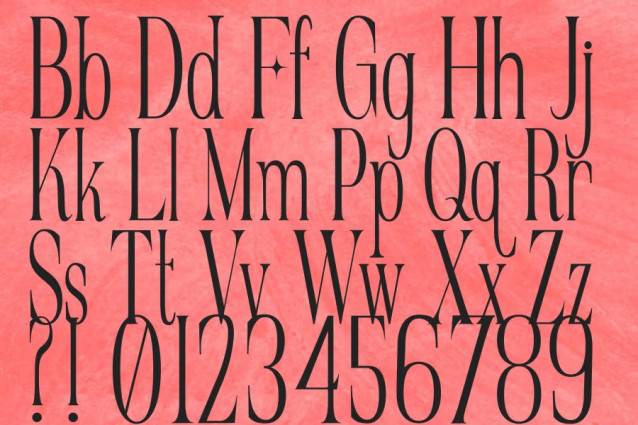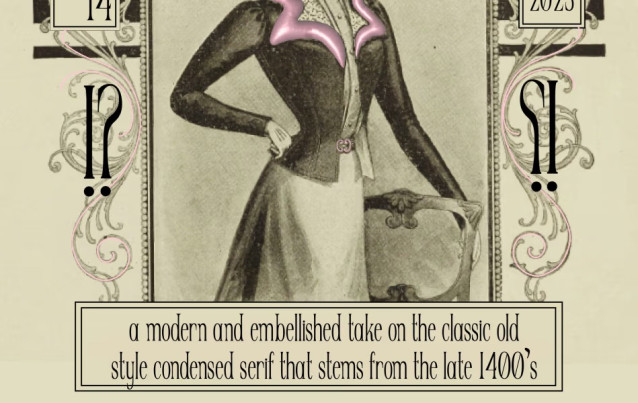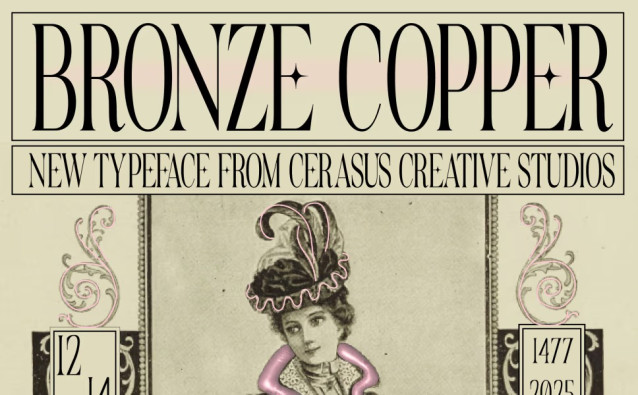
BronzeCopper Font
Bronze Copper Font is a modern and embellished interpretation of the classic old-style condensed serif font. With its refined vintage character, elegant proportions, and decorative details, this typeface brings a timeless yet sophisticated feel to any design. Perfect for branding, editorial layouts, packaging, logos, posters, and luxury-themed projects, Bronze Copper combines classic serif elegance with a contemporary artistic touch.